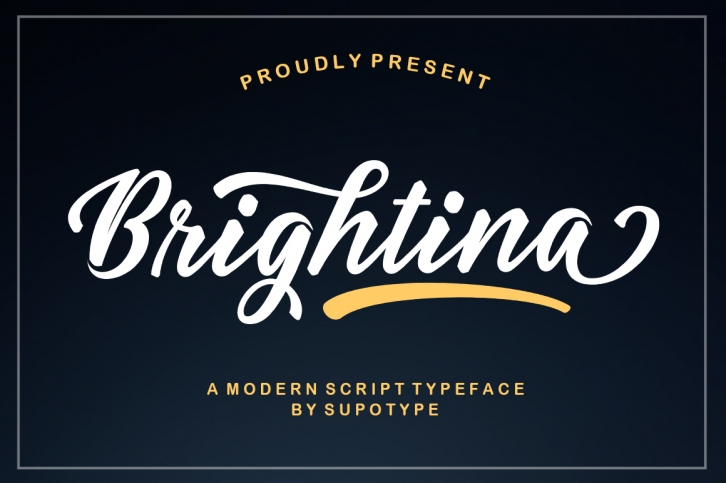
Brightina Script is a great font that was designed by Supotype. Imagine the amount of combinations you can create using this font! The archive is 4.54 MB and it was released on August 1, 2019. Brightina Script looks beautiful on wedding invitations, greeting cards, logos, posters, labels, t-shirt designs, logos, business cards and is perfect for use in ink or watercolor works, fashion, magazines, packaging and food menus, children's books and more!